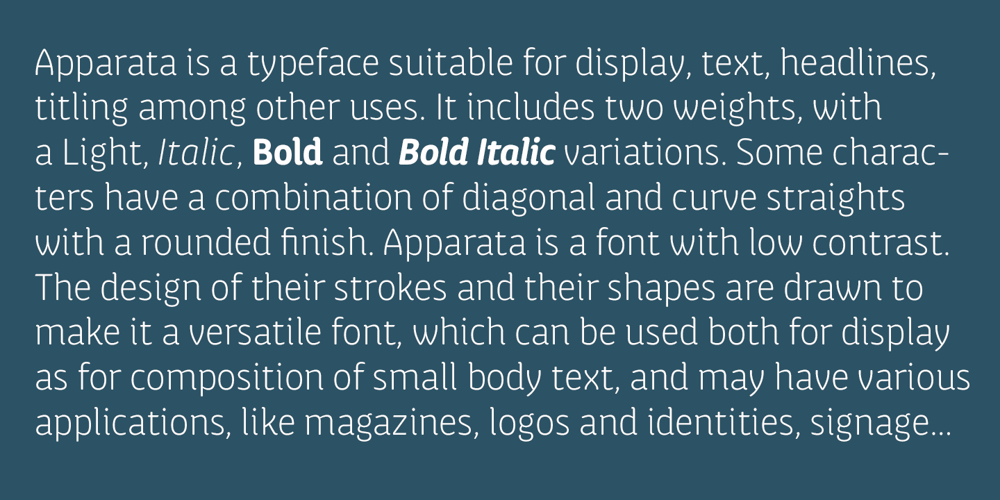
Apparata
Apparata font
Apparata Font Family was designed by Xavier Lanau and published by Xavier Lanau. Apparata contains 4 styles and family package options. Apparata is a versatile display and text typeface suitable for identities or magazines. With a rounded finish, some characters have a combination of diagonal and curve strokes. Currently includes 4 styles: Light, Light Italic, Bold and Bold Italic. With more than 700 glyphs in each font, smallcaps, tabular and old style figures, fractions, ligatures, punctuation and symbols.